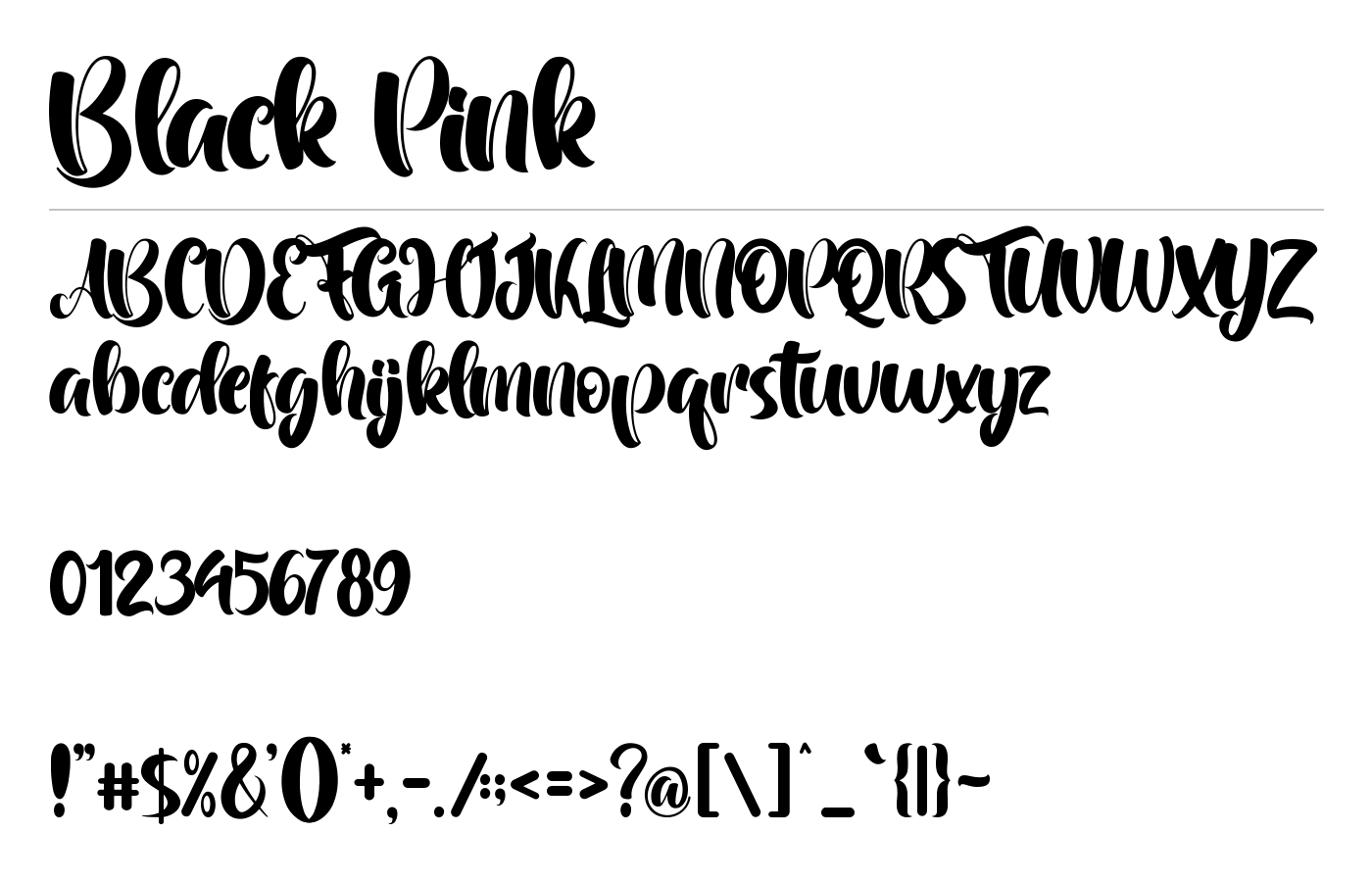
Black Pink is a bold, playful script font with a strong presence, featuring thick strokes and smooth, rounded edges that give it a lively and friendly feel. Its flowing letterforms and elegant swashes make it ideal for creative branding, logos, and eye-catching headlines, especially where a fun yet confident personality is desired. This font works well in fashion, beauty, and lifestyle designs that want to convey charm and youthful energy.
Black Pink Font
About Black Pink Font
| Font family | Black Pink Font |
| Designer | Aveni Yuanita |